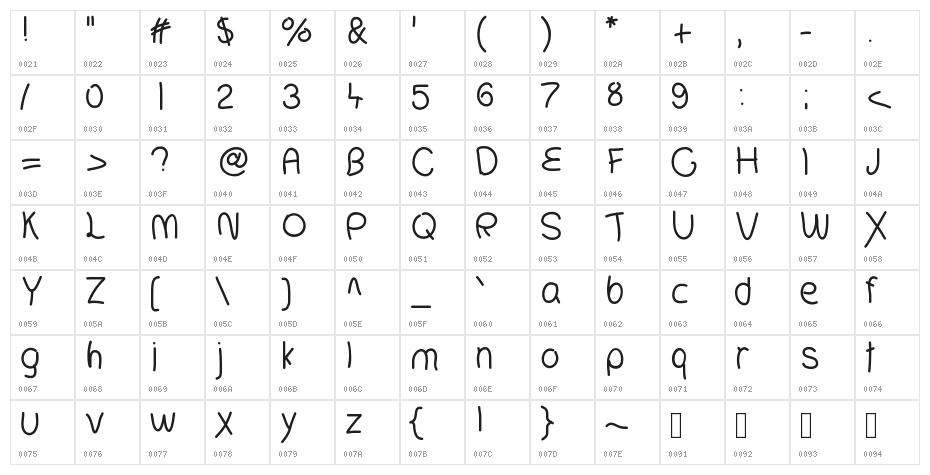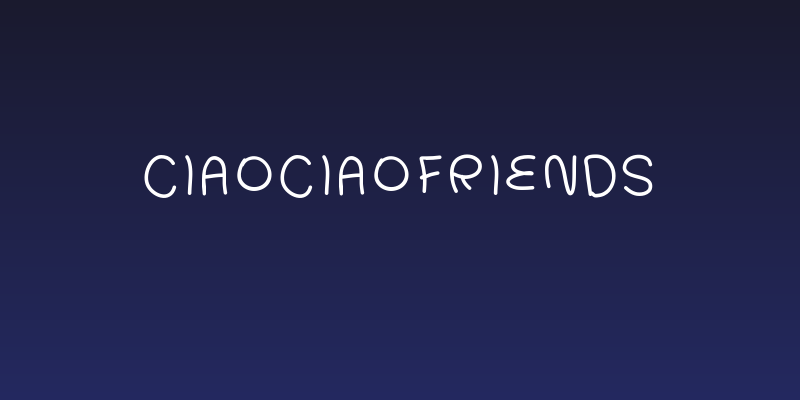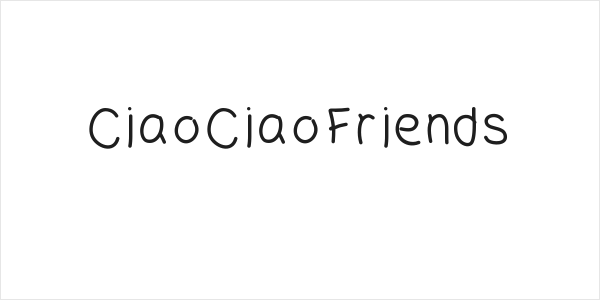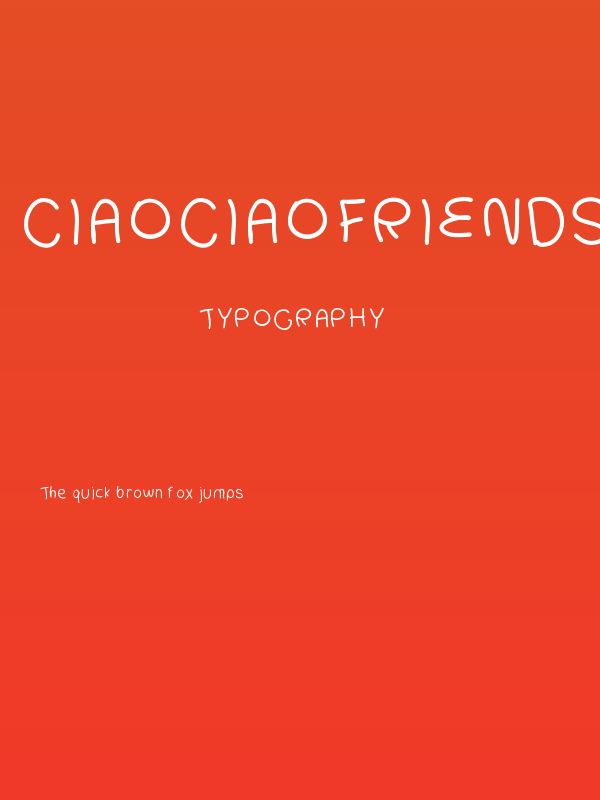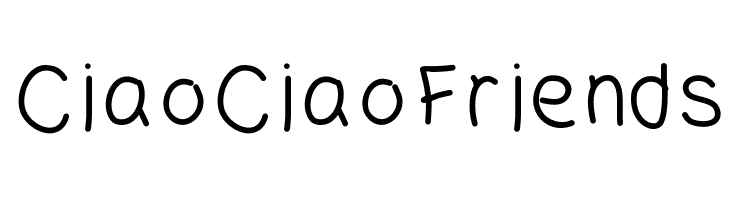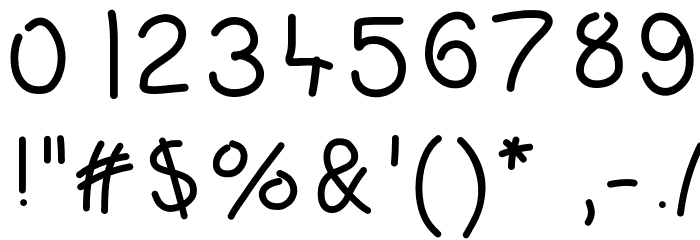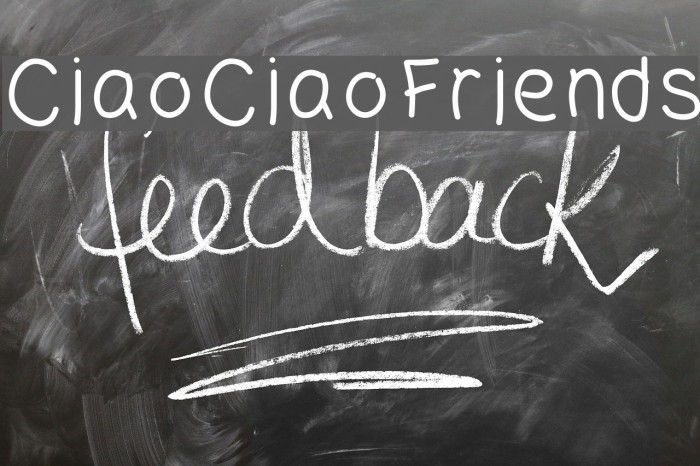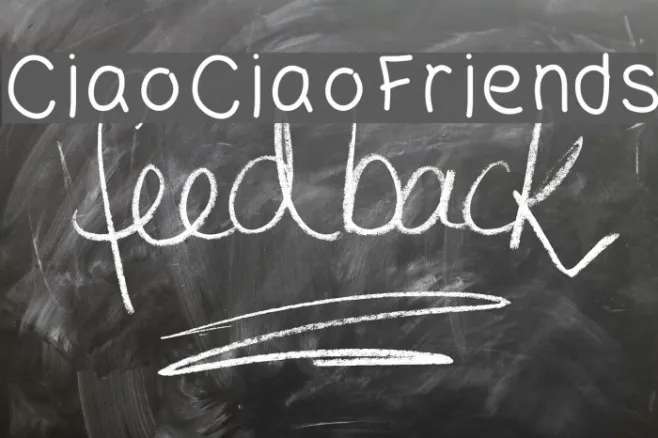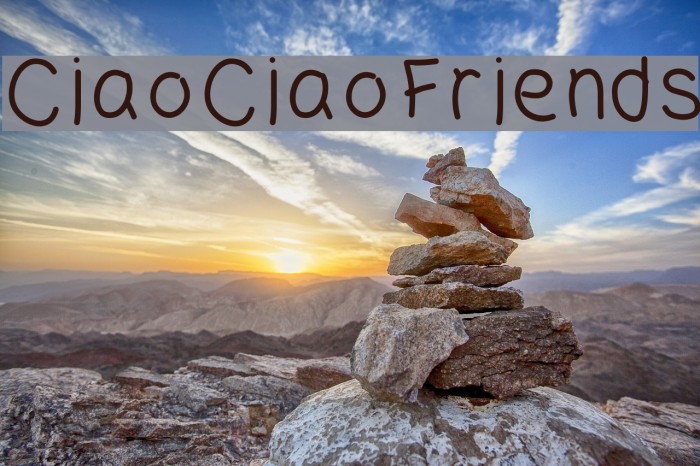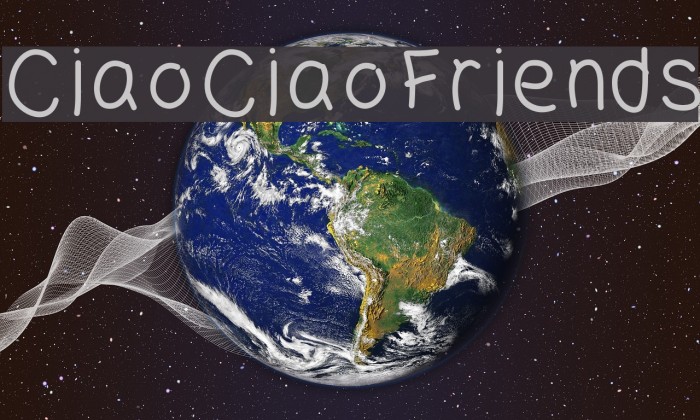
CiaoCiaoFriends Font
CiaoCiaoFriends Description
This playful and whimsical font features rounded, hand-drawn characters that convey a sense of friendliness and approachability. The letters have a casual, informal style with slightly irregular strokes, giving them a unique charm. The uppercase and lowercase letters are consistent in their playful design, making them suitable for creative and fun projects. The numerals and special characters maintain the same hand-drawn aesthetic, ensuring a cohesive look across all text elements. This font is perfect for projects that require a touch of personality and warmth.
| Proposed Projects | Ideal for children's books, greeting cards, playful branding, and casual invitations. |